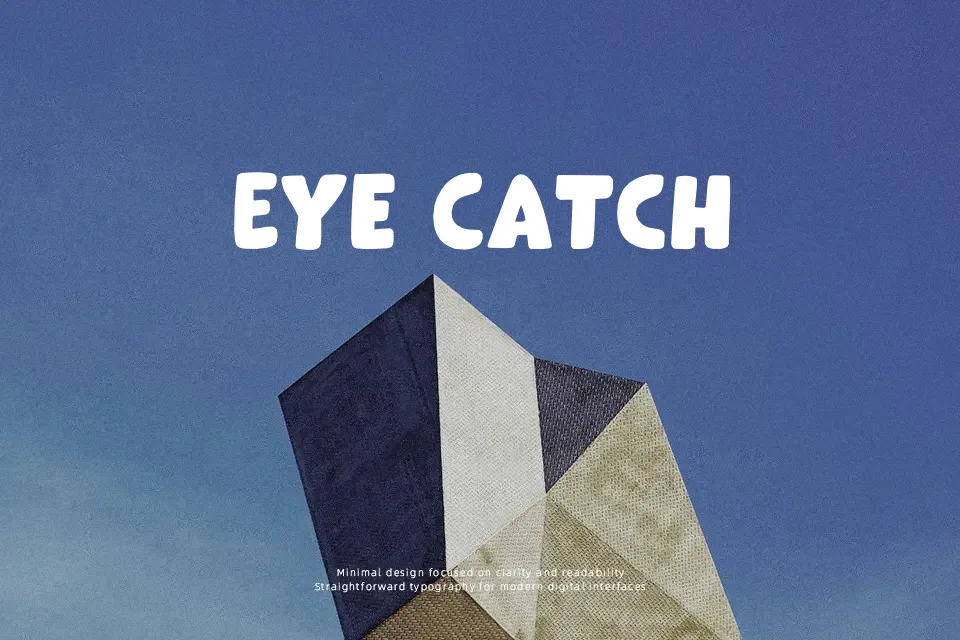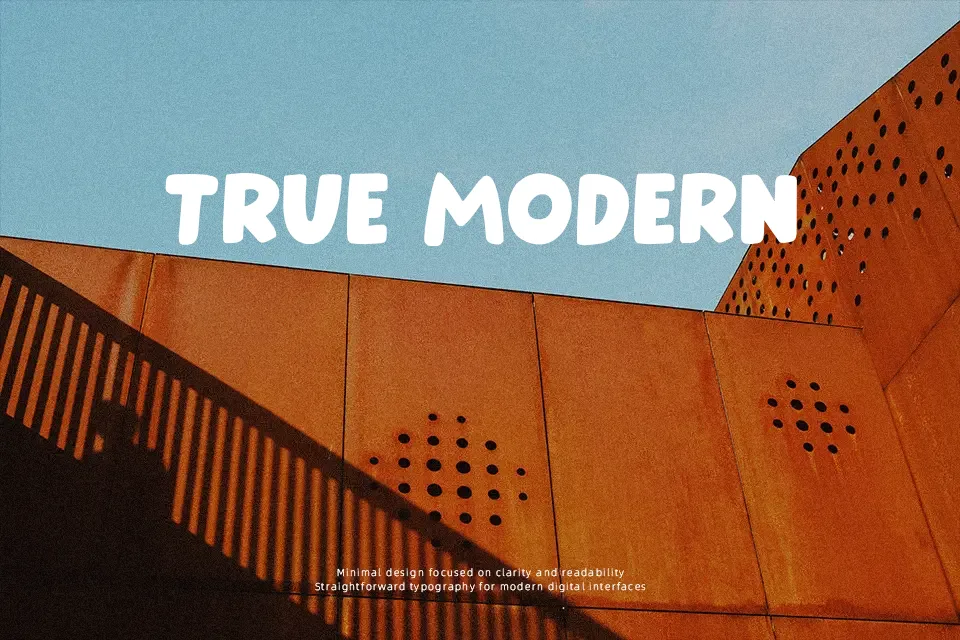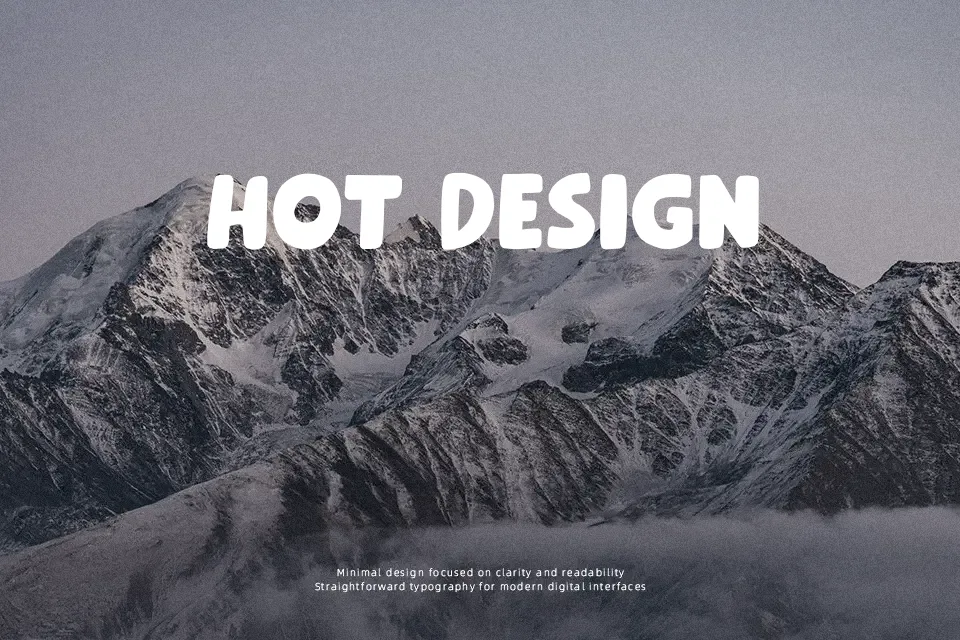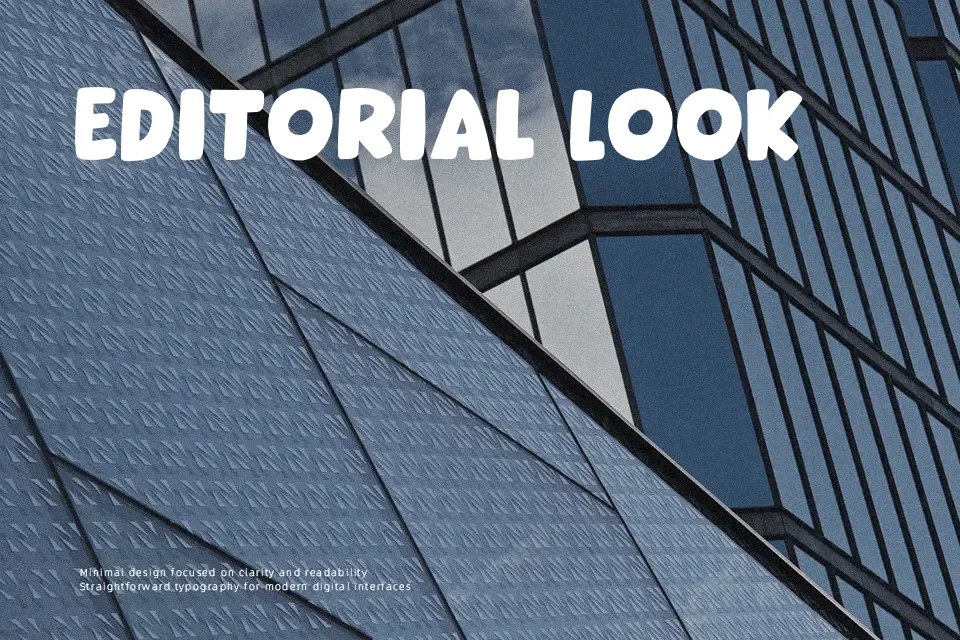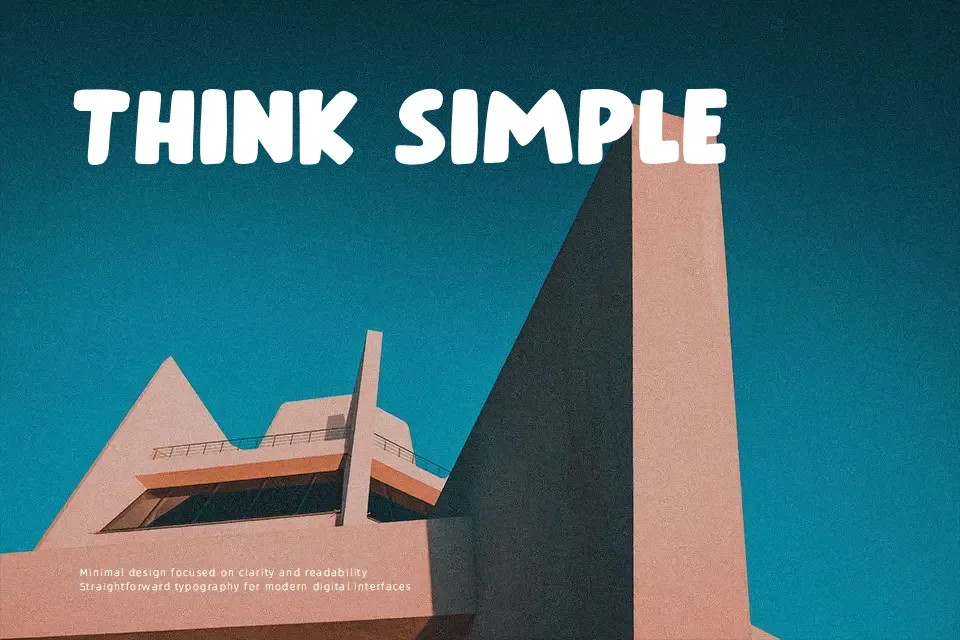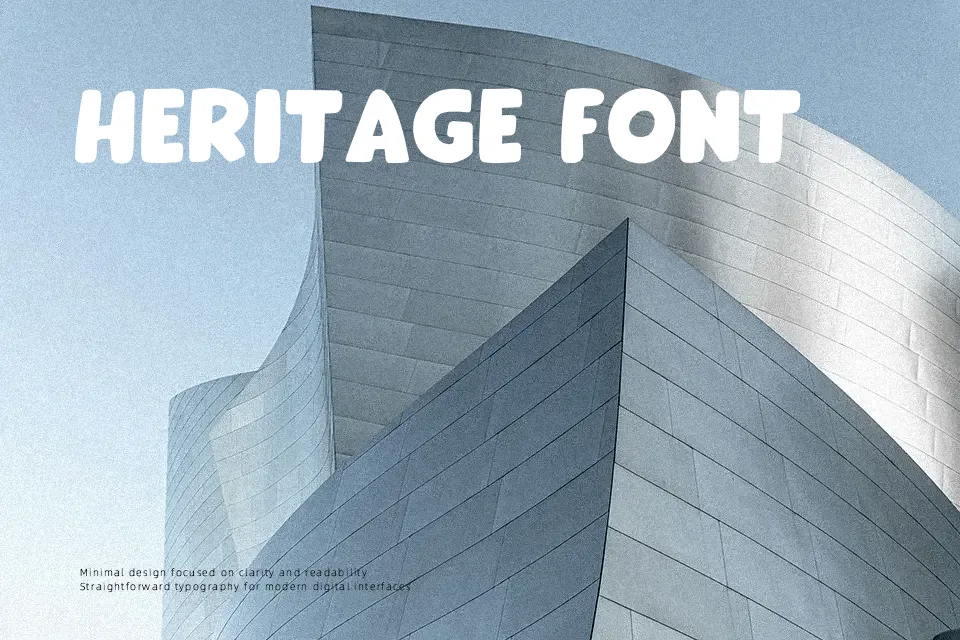
Alien Circus Font
Designed by Hanoded
Alien Circus Font leans on heavy, extra-bold strokes with low contrast and rounded edges, giving each letter a soft, hand-drawn silhouette. Spacing is fairly tight, so words form compact, energetic blocks that pull focus in headlines and short phrases. The overall look is informal and playful rather than polished, which works well for children’s book covers, birthday invitations, casual logos, and social graphics that need a friendly voice. It struggles in long paragraphs or serious corporate contexts, where its weight and looseness quickly become tiring and off-brand. Use it when you want fun and character; avoid it when you need subtlety or high readability at small sizes.
kids birthday invitations
playful logo wordmarks
poster headlines for events
social media graphics for fun brands
formal corporate reports
small UI labels or captions
minimal, highly professional branding
Perfect for branding, headline, and logo, with a bold and cartoon style.